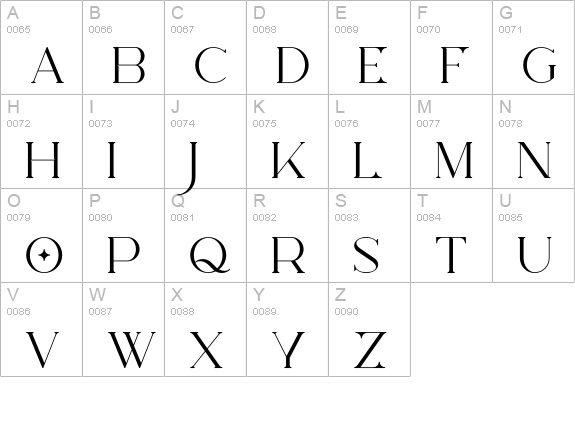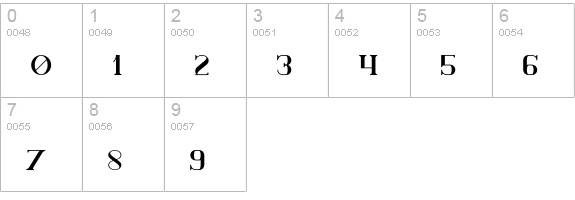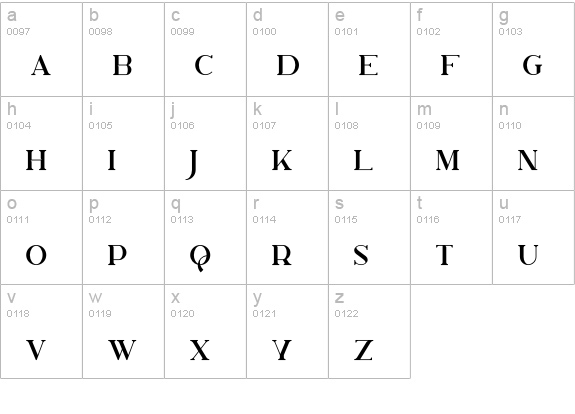
LotusEater Font Details
LotusEater is a free for personal use font in the General > Serif category, designed by vpcreativeshop. It has been downloaded 220 times and is available for Windows, Mac and Linux.
LotusEater font is a stunning and elegant typeface that exudes a sense of sophistication and modernity. Its sleek lines and intricate details make it perfect for a wide range of design projects, from branding to editorial pieces. The font's unique style is sure to capture attention and add a touch of class to any project.